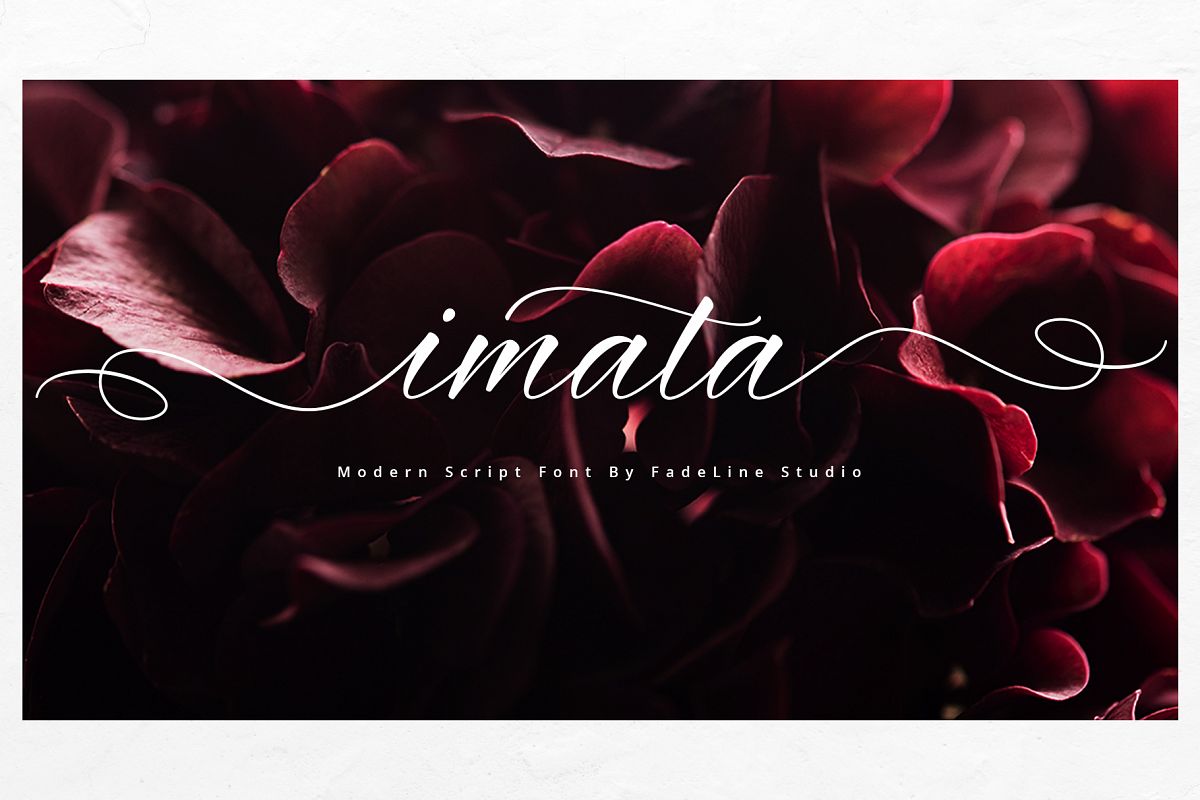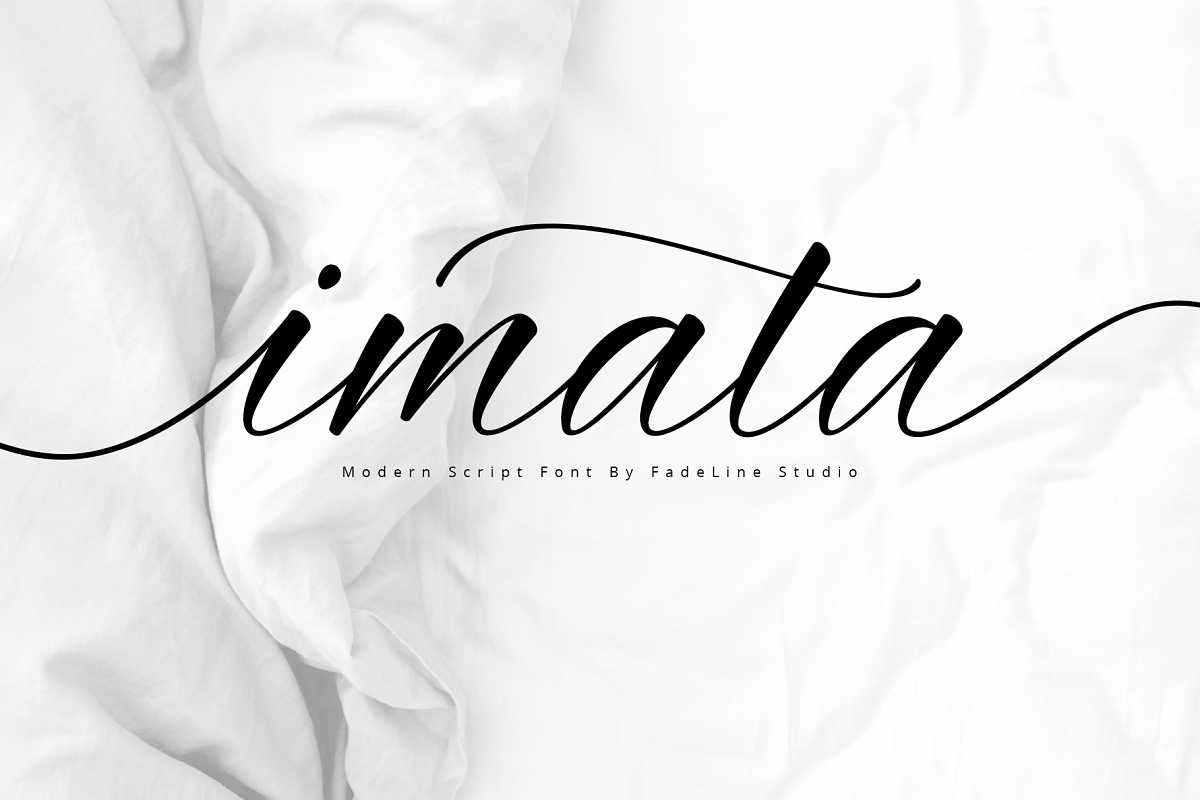
Imata Script
Introducing Imata Script
Imata Script a new Modern Calligraphy Script with a elegant italic style, and contains soft and neat glyph characters!
With a style like this, this font will be suitable in use for logo's, branding projects, homeware designs, product packaging, mugs, quotes, posters, shopping bags, logo's, t-shirts, book covers, name card, invitation cards, greeting cards, and all your other lovely projects.
Imata Script example image 1
Imata Script
By FadeLine Studio